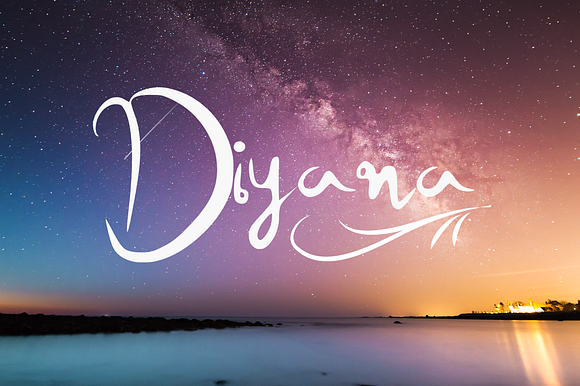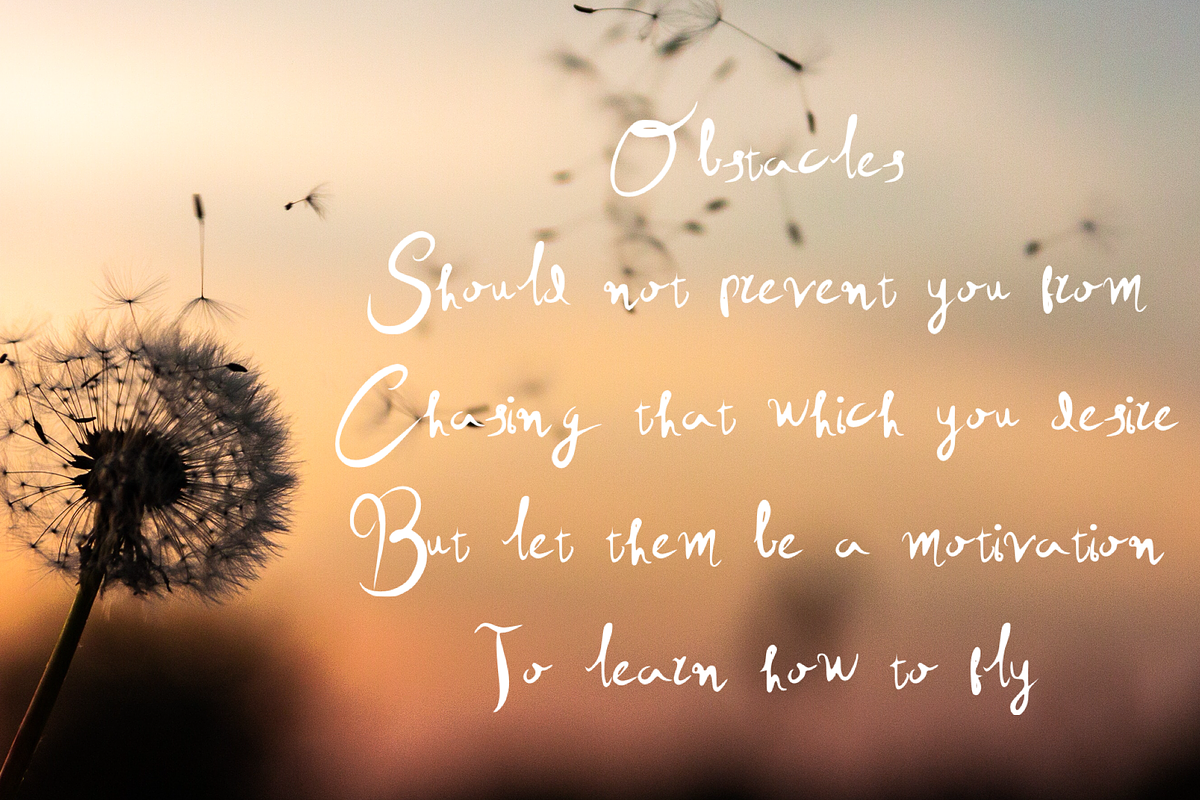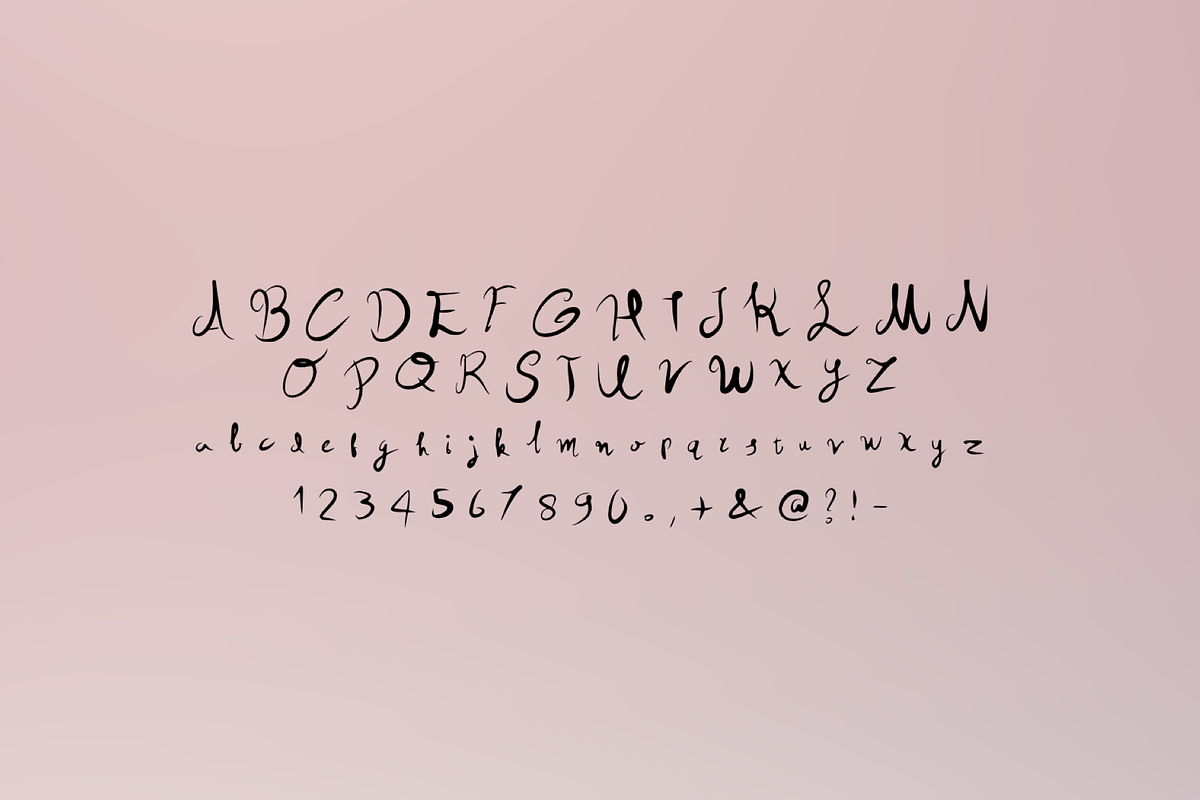
Diyana Handwritten Font
Diyana is a handwritten font. Ideal for logos, handwritten quotes, product packaging, header, poster, merchandise, social media & greeting cards.
Diyana Handwritten Font by Mila Visuals fits naturally into Branding, posters, packaging, typography.